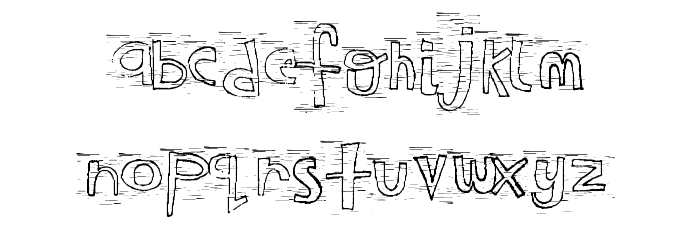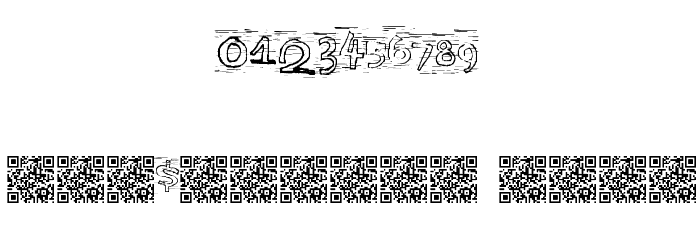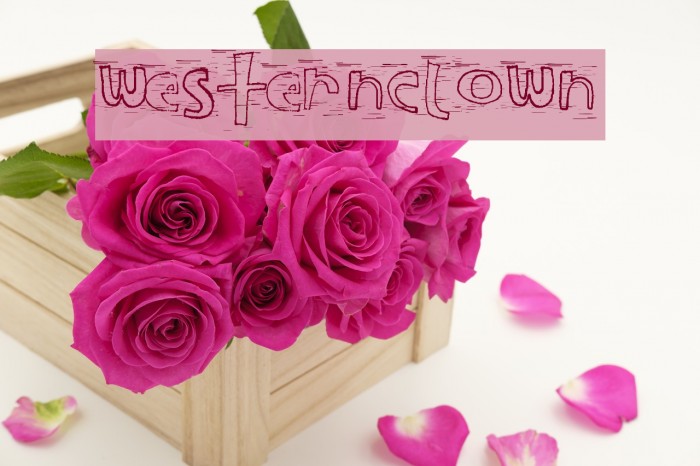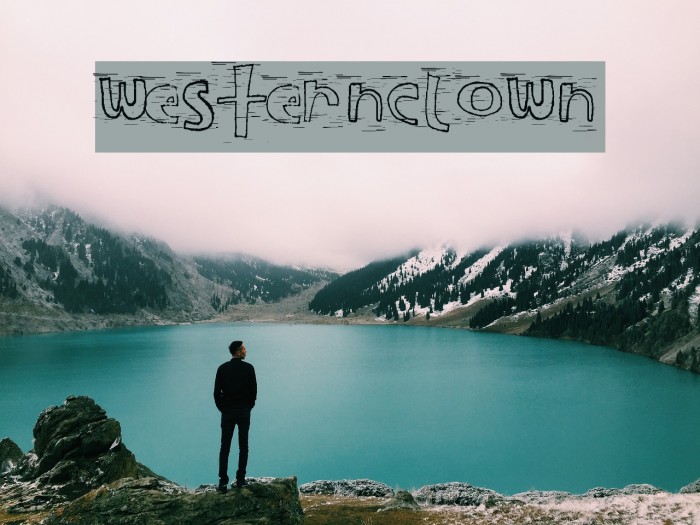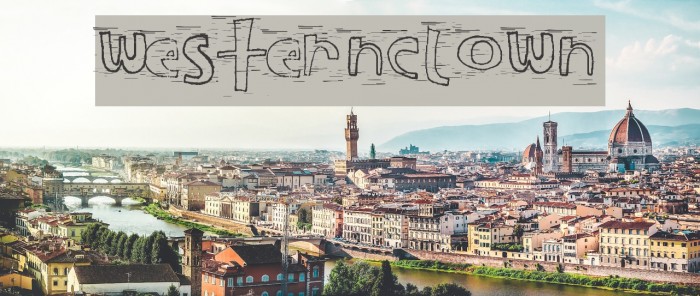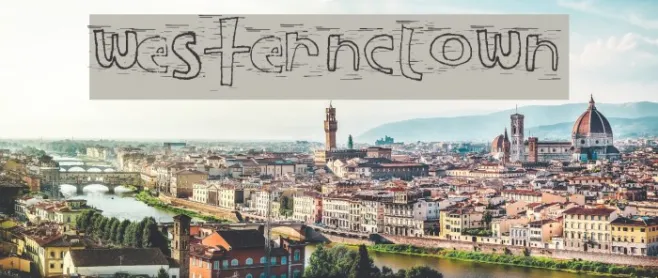
WesternClown Font
This font features a playful, hand-drawn style with a slightly irregular and sketchy appearance. The characters have a whimsical quality, with uneven lines and a casual, artistic flair. The uppercase and lowercase letters maintain a consistent style, with quirky variations that add to the font's charm. The numbers and special characters follow the same playful design, making the font suitable for creative projects. The overall look is reminiscent of doodles or children's handwriting, offering a unique and informal aesthetic.
A playful, hand-drawn font with a whimsical and sketchy style.
- Proposed Projects: Ideal for children's books, playful branding, casual invitations, and artistic posters.